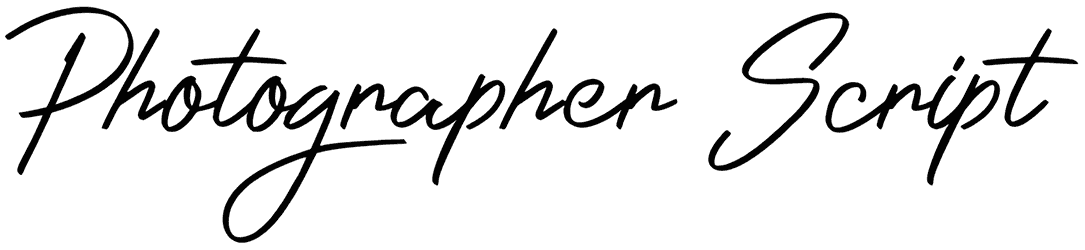
Photographer Script Font
Let’s write a beautiful text for a modern design and be admirable. This handwritten font with its delicate and casual style would be a catchy face for your formal or informal projects. As an elegant quote font, you can place Photographer Script on your upcoming designs, such as cards, posters, apparel, or the like, and give them a memorable vibe.